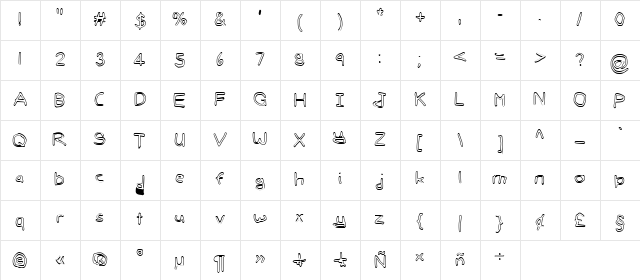
Design Context for Gee_WP_Handwriting_2016_Outli Typeface
Gee_WP_Handwriting_2016_Outli flows with the natural rhythm of handwritten lettering, making it ideal for designs that call for warmth and personal expression.
Font Pairing: Combine Gee_WP_Handwriting_2016_Outli with a simple geometric sans for maximum contrast — the tension between flowing curves and clean structure is a classic typographic pairing.
Pro Tip: Use Gee_WP_Handwriting_2016_Outli for short runs of text — names, titles, or taglines. Extended body copy in script faces tires the eye quickly.